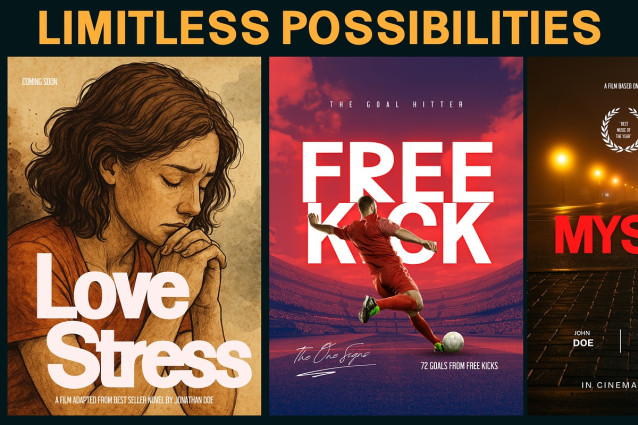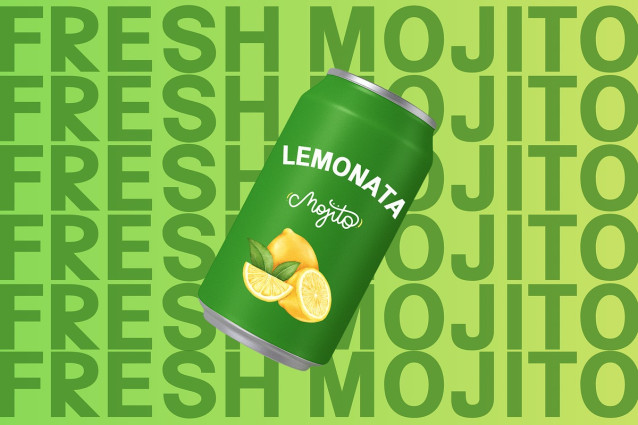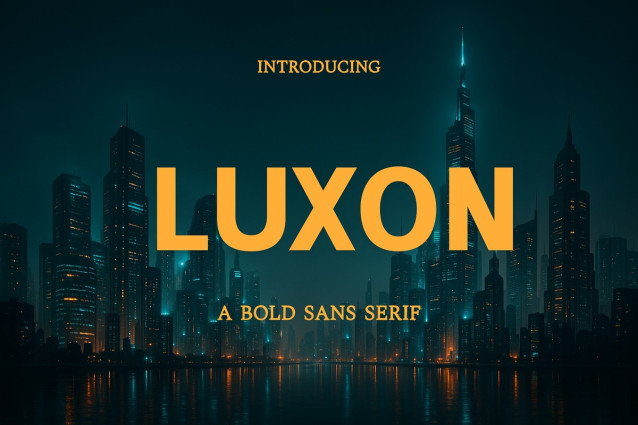
Luxon Font
Luxon Font — a bold sans serif font with a clean, modern edge. Designed for impact, its confident lines and balanced shapes make it perfect for headlines, posters, branding, and packaging. Luxon keeps things sharp and readable while delivering a strong visual presence. Whether in print or on screen, this font brings clarity and strength to every design.